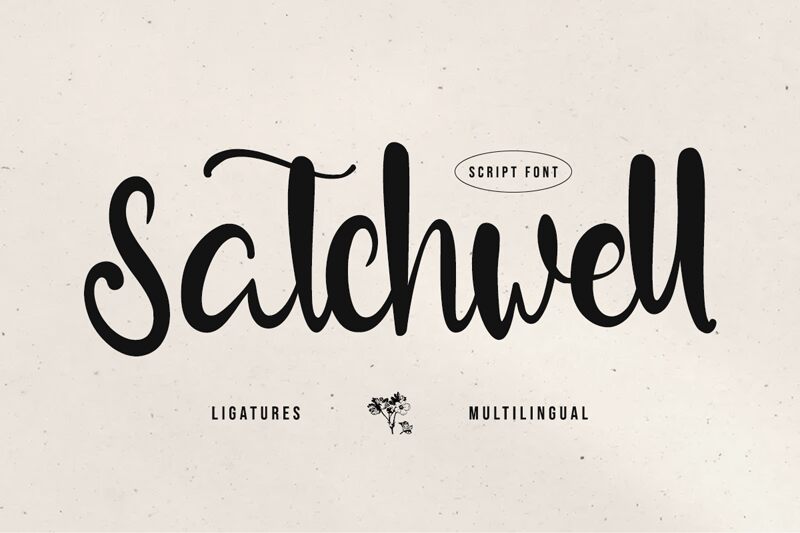
Satchwell
Satchwell font is a handwritten typeface designed and introduced by Kong Font. A charming balance between elegance and informality, Satchwell features unified flowing characters with smooth curves. Its playful whimsical mood provides an informal style perfect for friendly creative presentations.